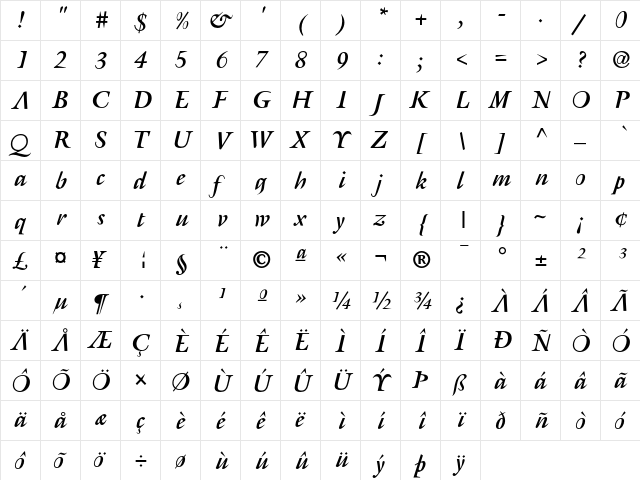
AFRetrospecta-BoldItalic Regular Font Preview
Design Context for AFRetrospecta-BoldItalic Typeface
AFRetrospecta-BoldItalic wears its vintage influences proudly, with letterforms that recall mid-century signage, classic packaging, and nostalgia-driven design. The slanted form adds forward momentum and visual energy. Its bold stroke weight gives it real presence on the page.
Perfect for vintage-inspired branding, retro packaging, nostalgia campaigns, and period-accurate editorial design.
Font Pairing: Combine AFRetrospecta-BoldItalic with a simple slab or neutral sans — period-accurate companions reinforce the vintage feel without competing for attention.
Pro Tip: Use AFRetrospecta-BoldItalic for headlines and pull quotes rather than body copy — its personality is best appreciated in short, focused bursts.